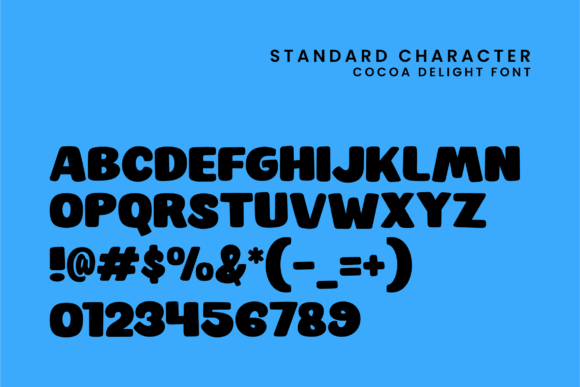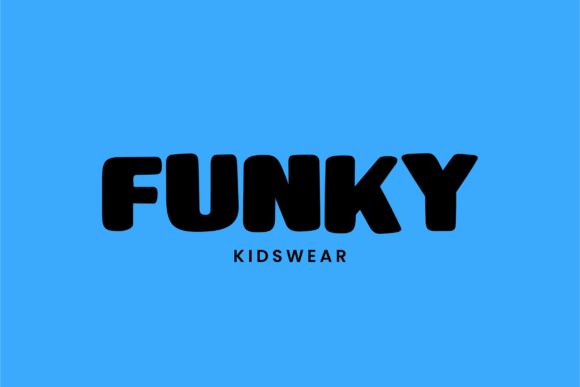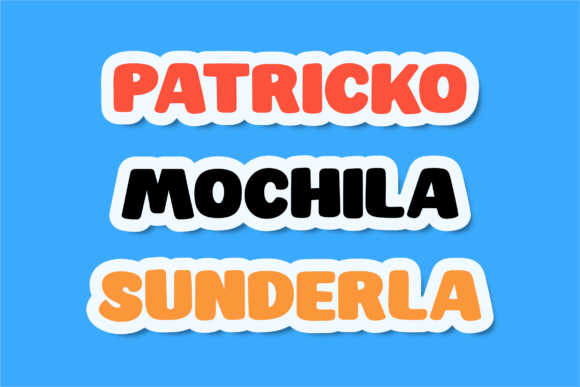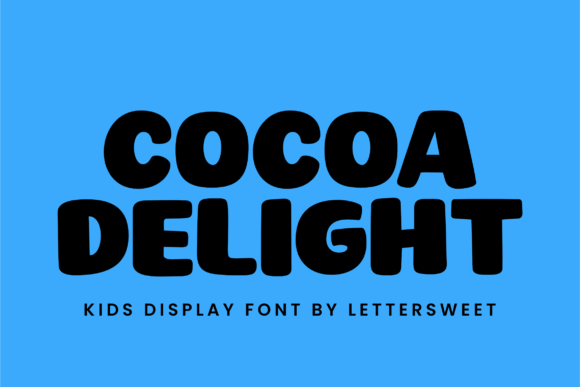
Introduction to Cocoa Delight Font
Cocoa Delight is a playful and cheerful font designed especially for children’s projects.
It radiates happiness and fun, making it perfect for kid-focused designs such as storybooks, toys, birthday invitations, and educational materials With its friendly curves and bouncy letters, Cocoa Delight adds a touch of joy to any creative project.